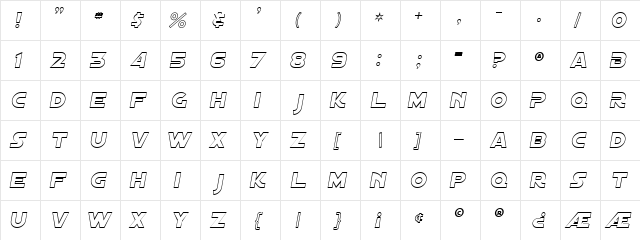
Distant Galaxy Outline Italic
Design Context for Distant Galaxy Outline Typeface
Distant Galaxy Outline is built around its visual character rather than neutral utility — its distinctive forms are designed to make an impression at display sizes. Its italic angle brings a sense of urgency and motion to the letterforms.
Font Pairing: Pair with a clean neutral sans-serif for body copy to let Distant Galaxy Outline's character lead without overwhelming the composition.
Pro Tip: Use Distant Galaxy Outline exclusively at display sizes — it was designed to be seen, not read at length. Let a neutral companion handle body copy.